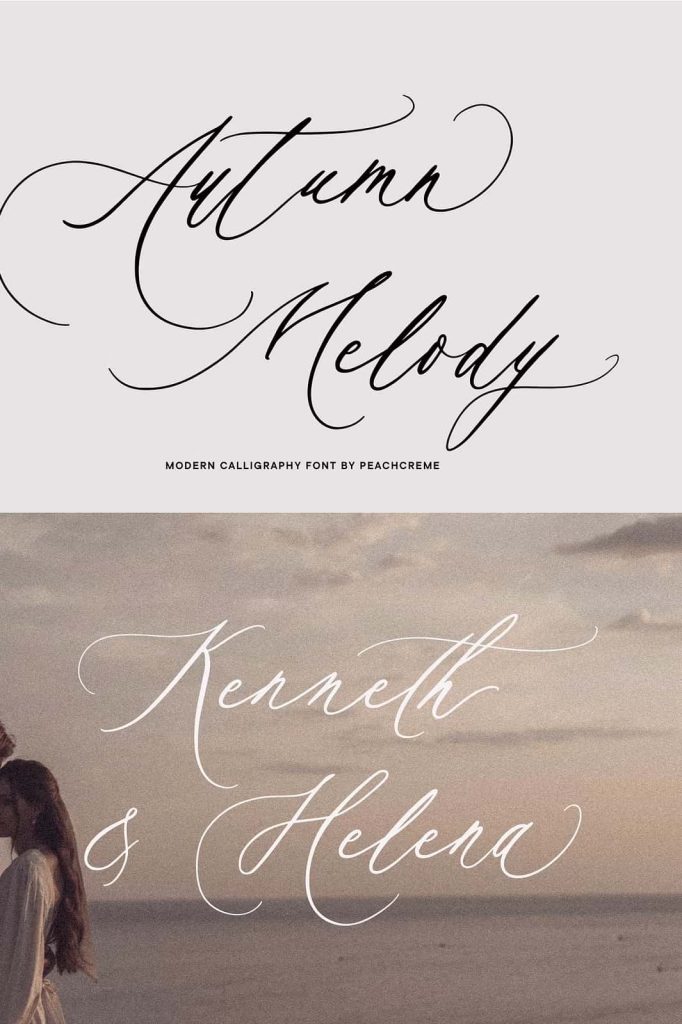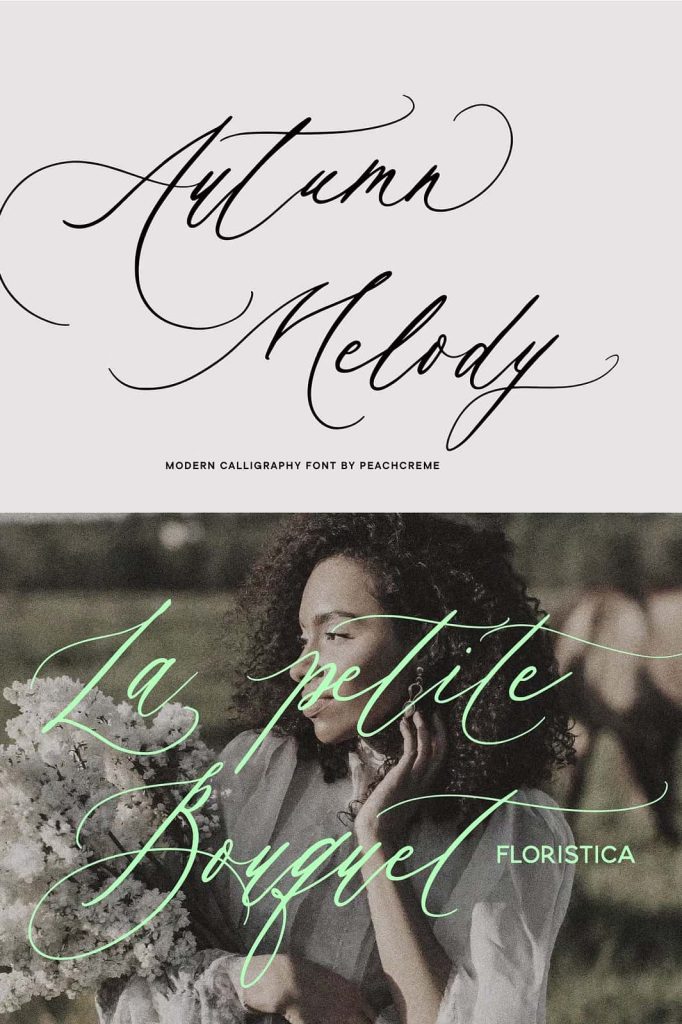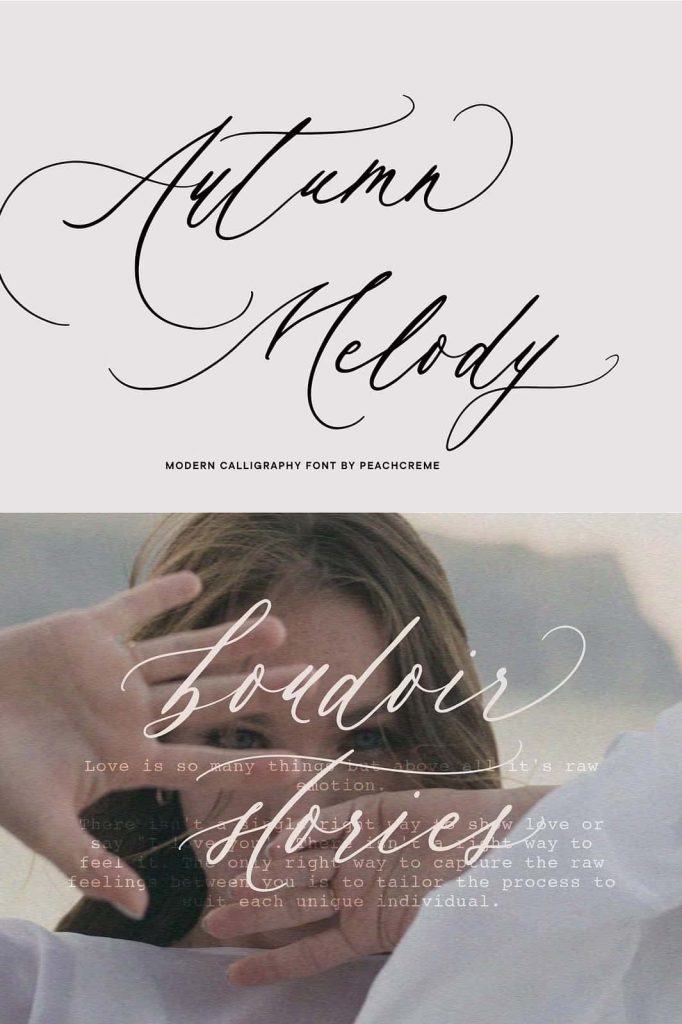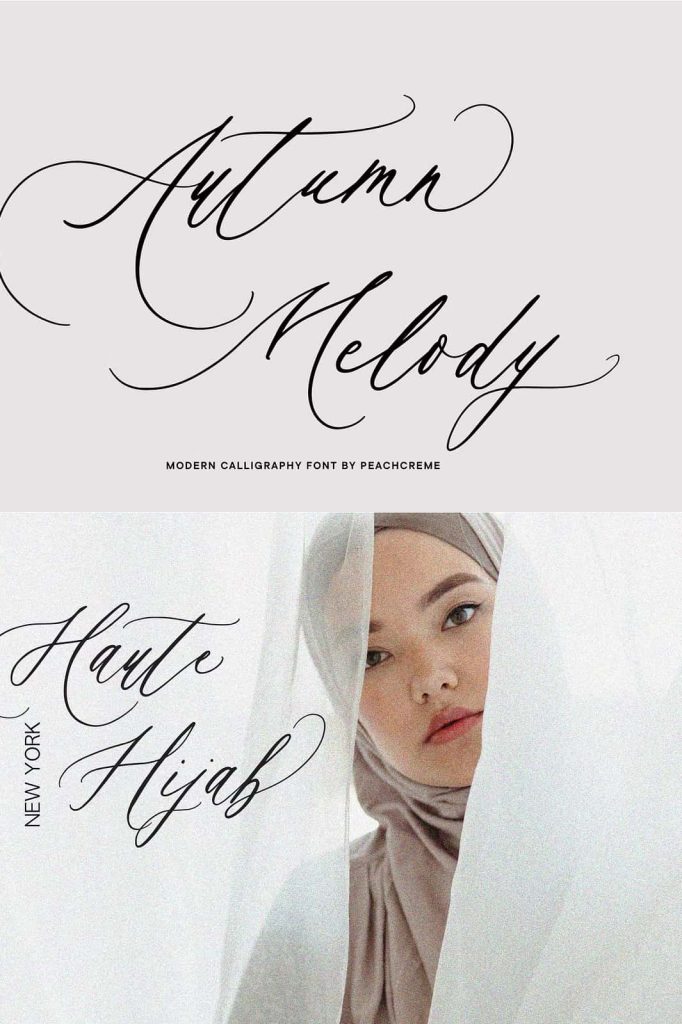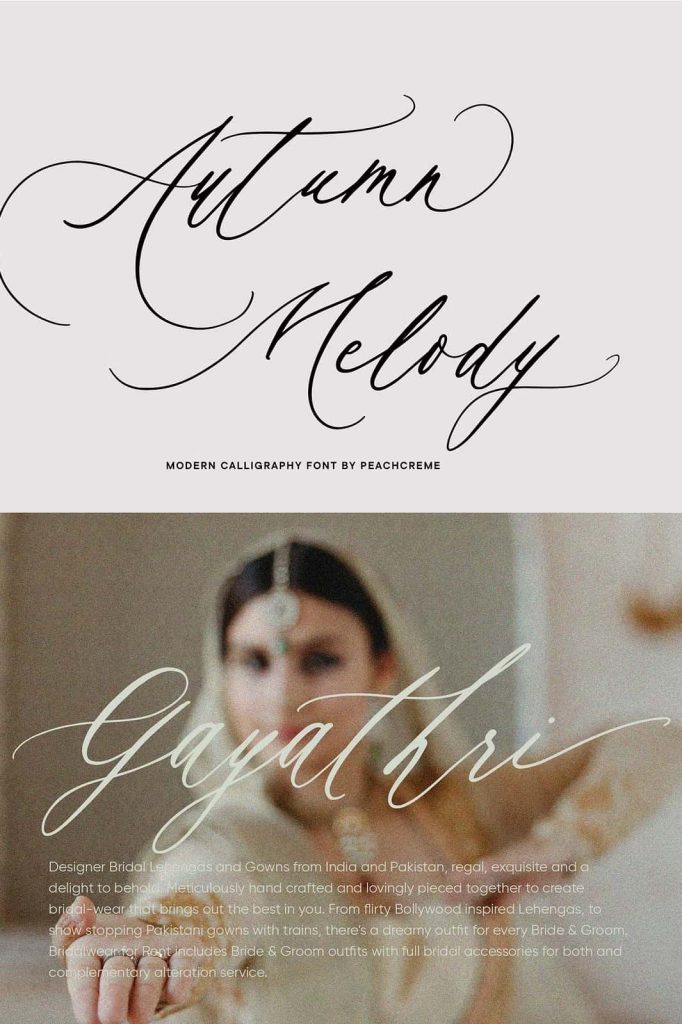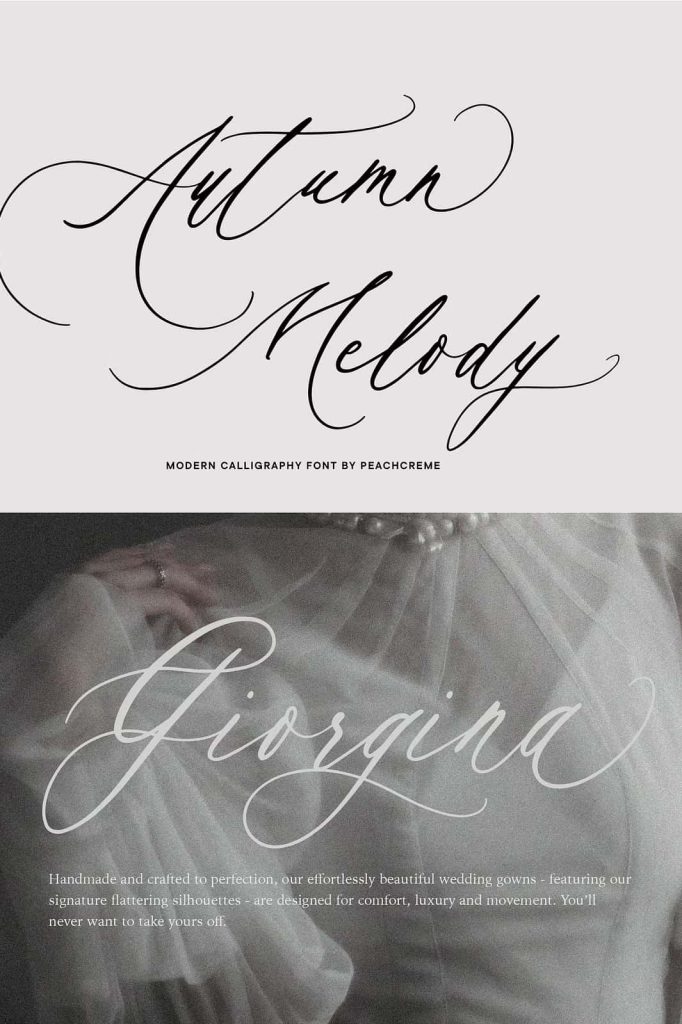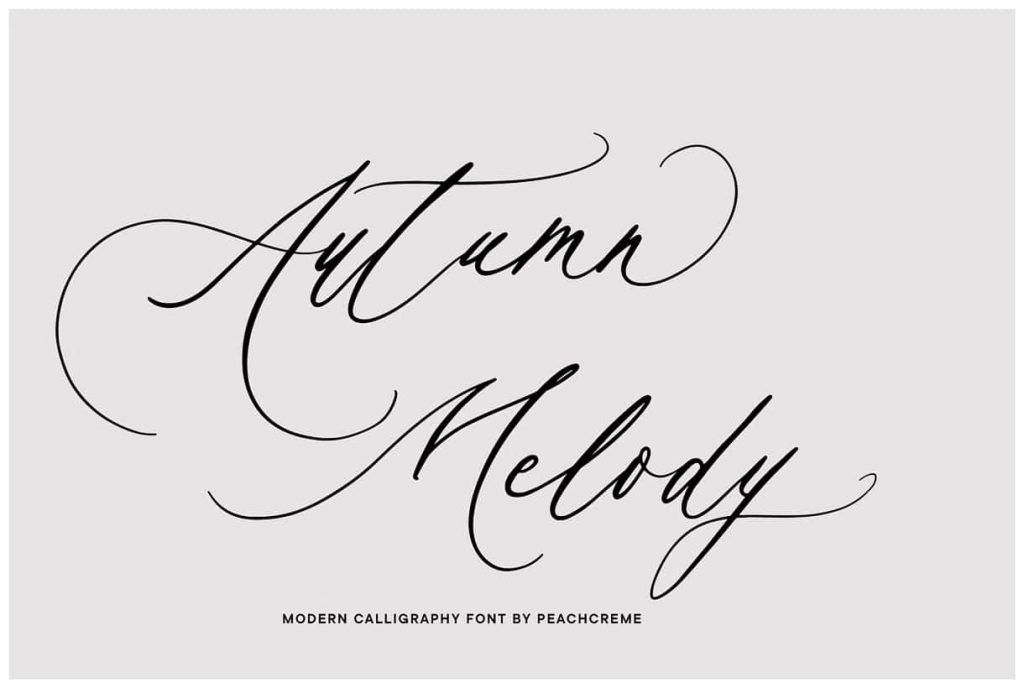
Autumn Melody // Wedding CalligraphyleastedApril 8, 2025Fonts Autumn Melody is a modern calligraphy font that adds a classy and deluxe touch to your designs. Download